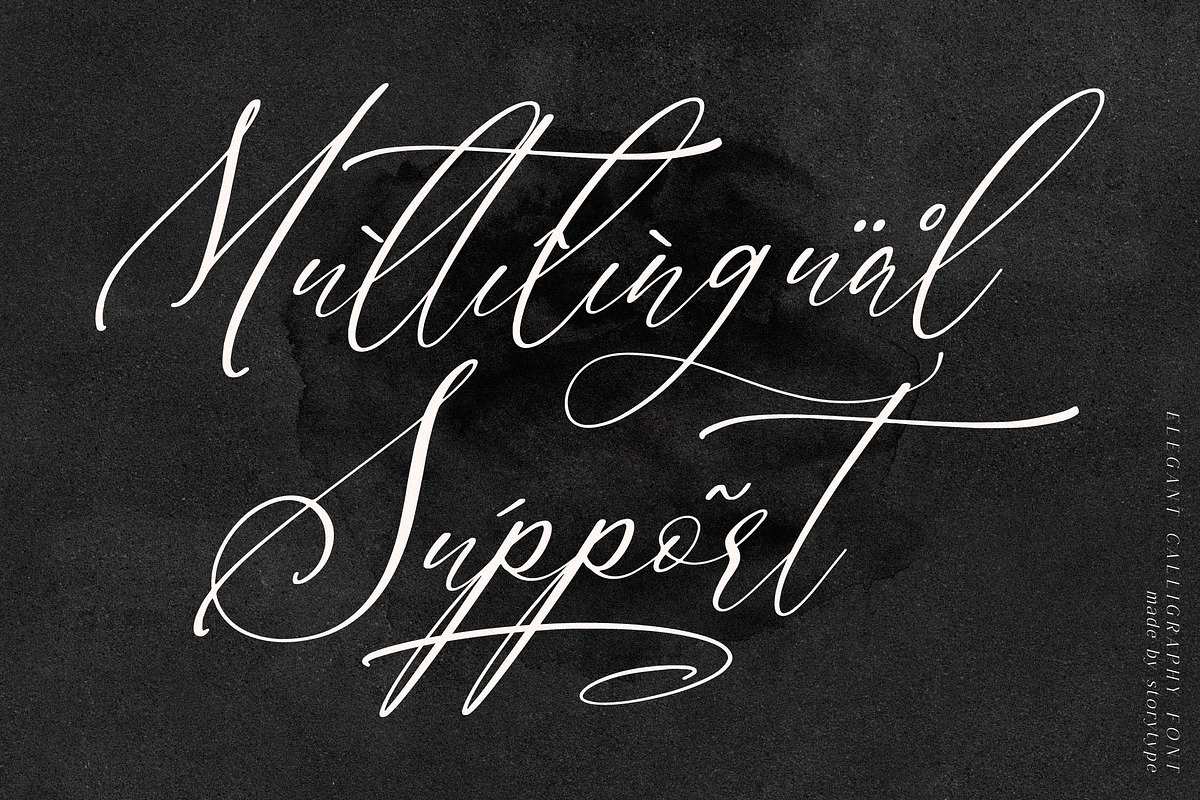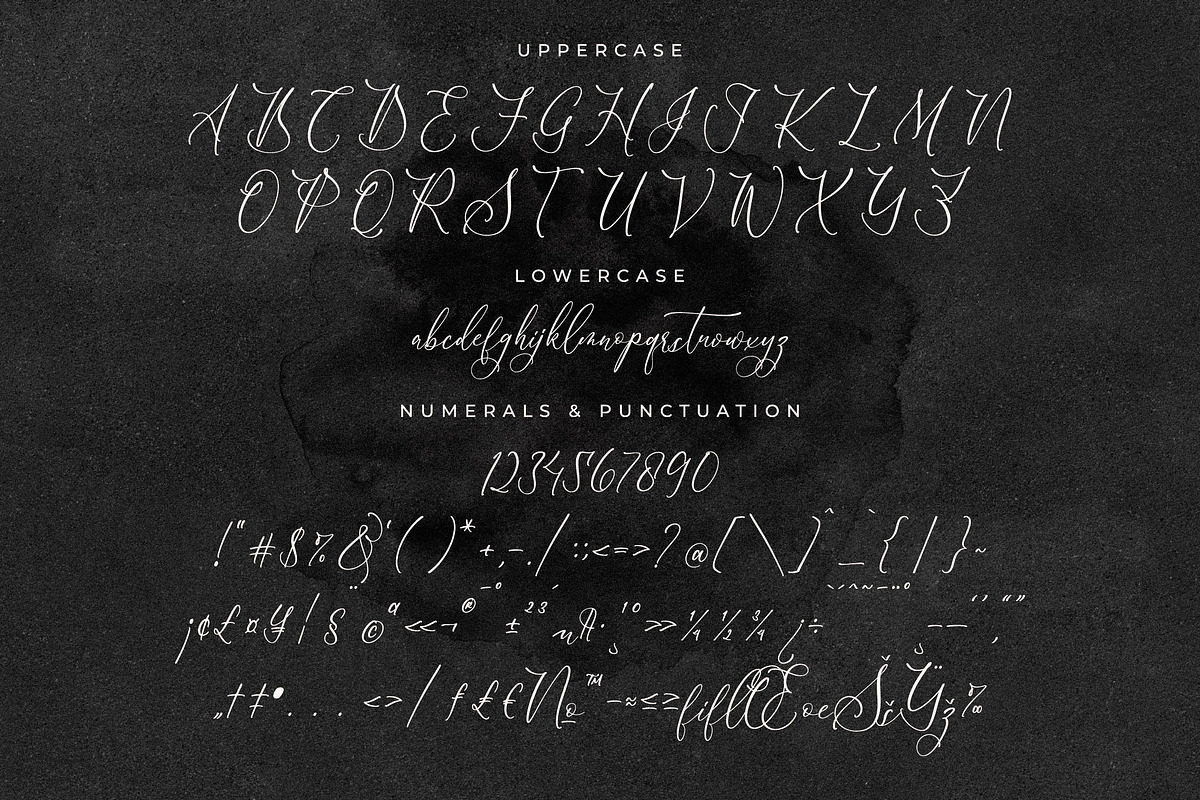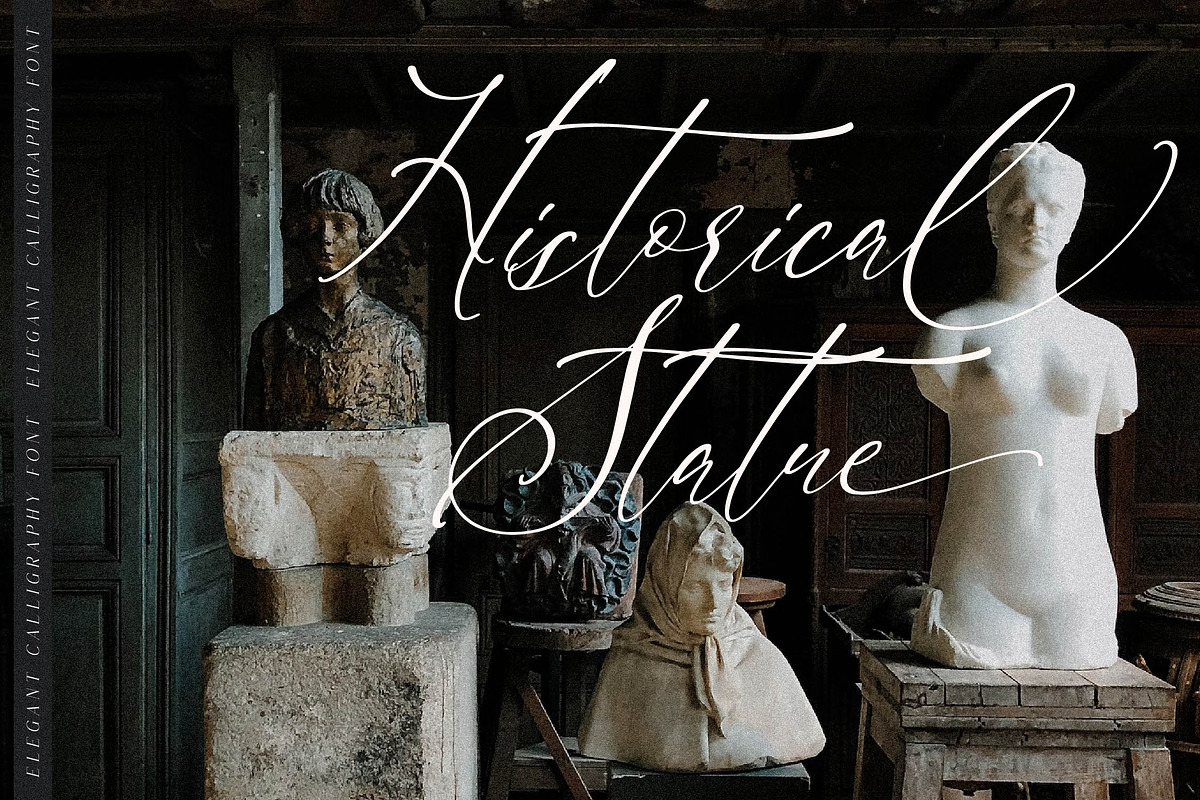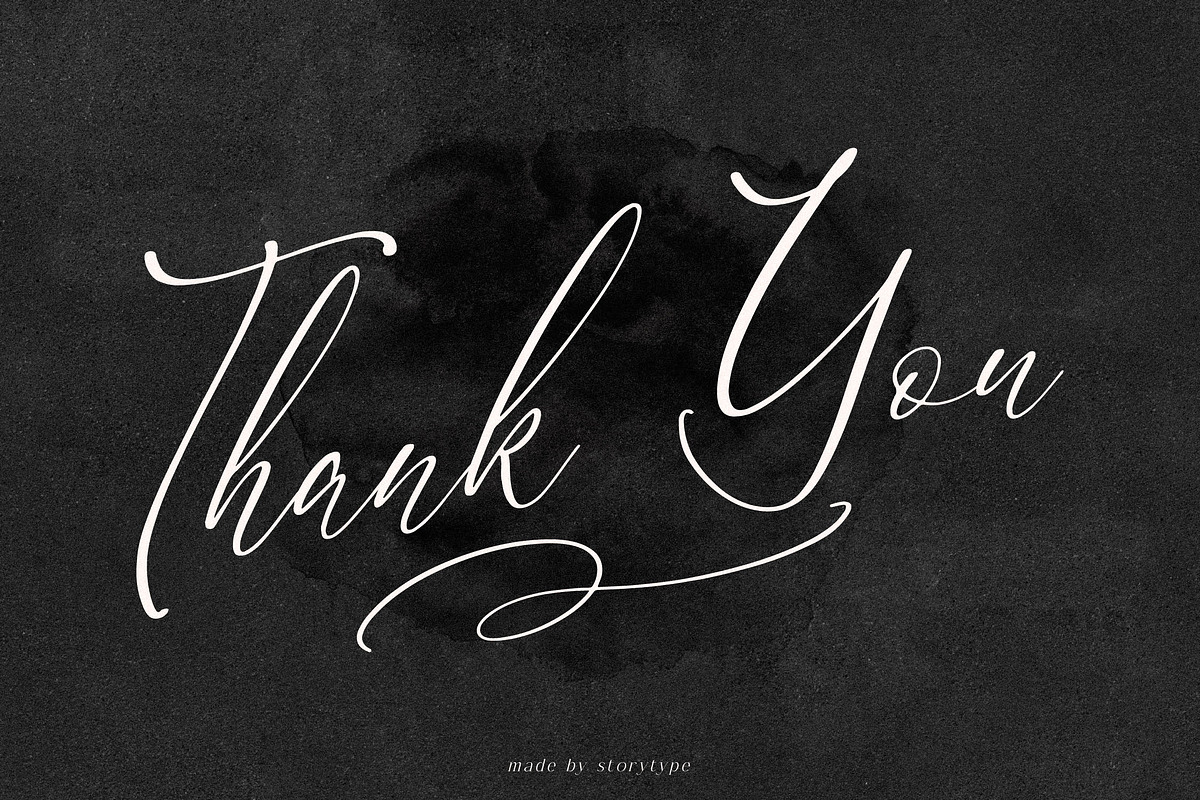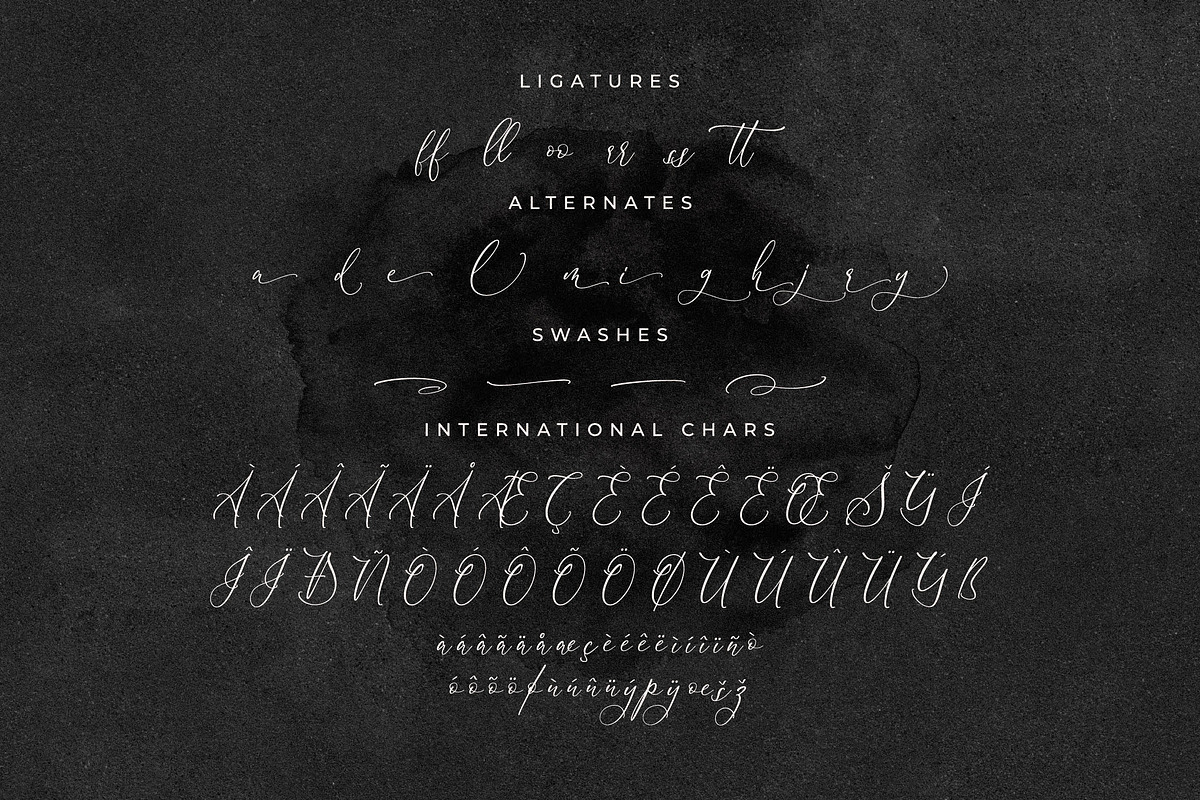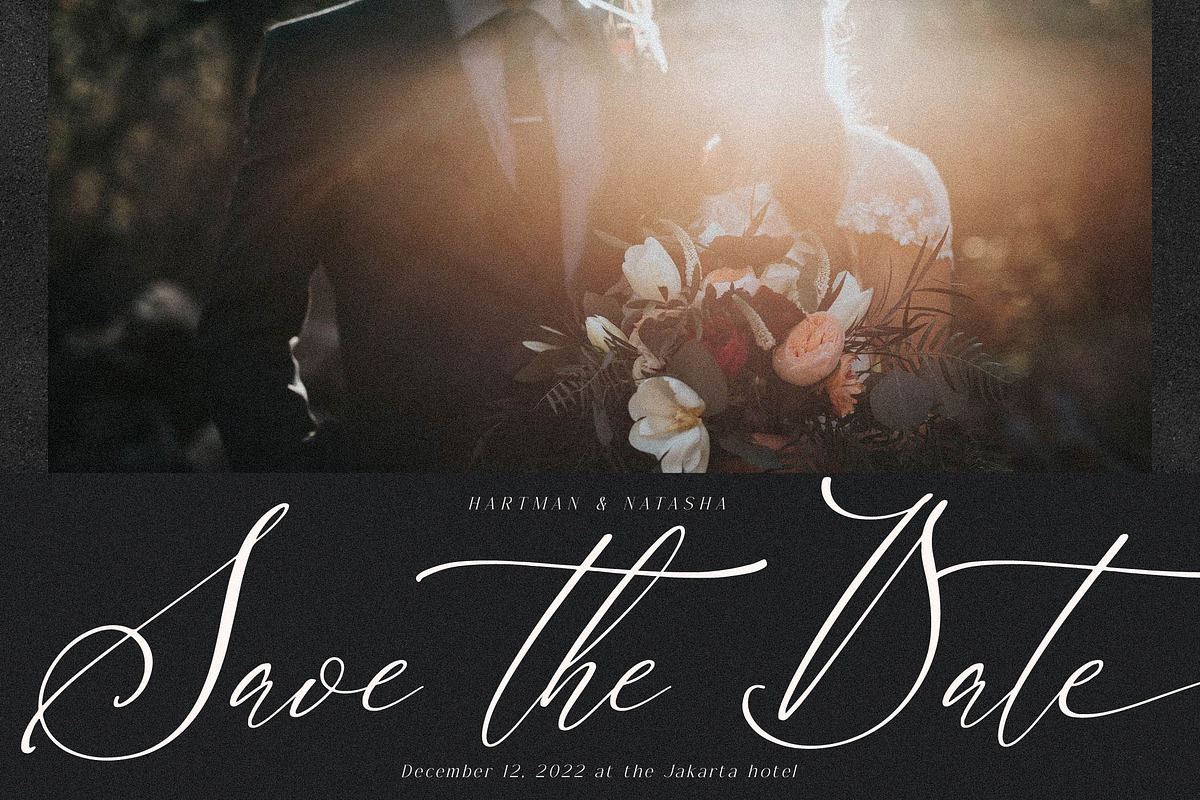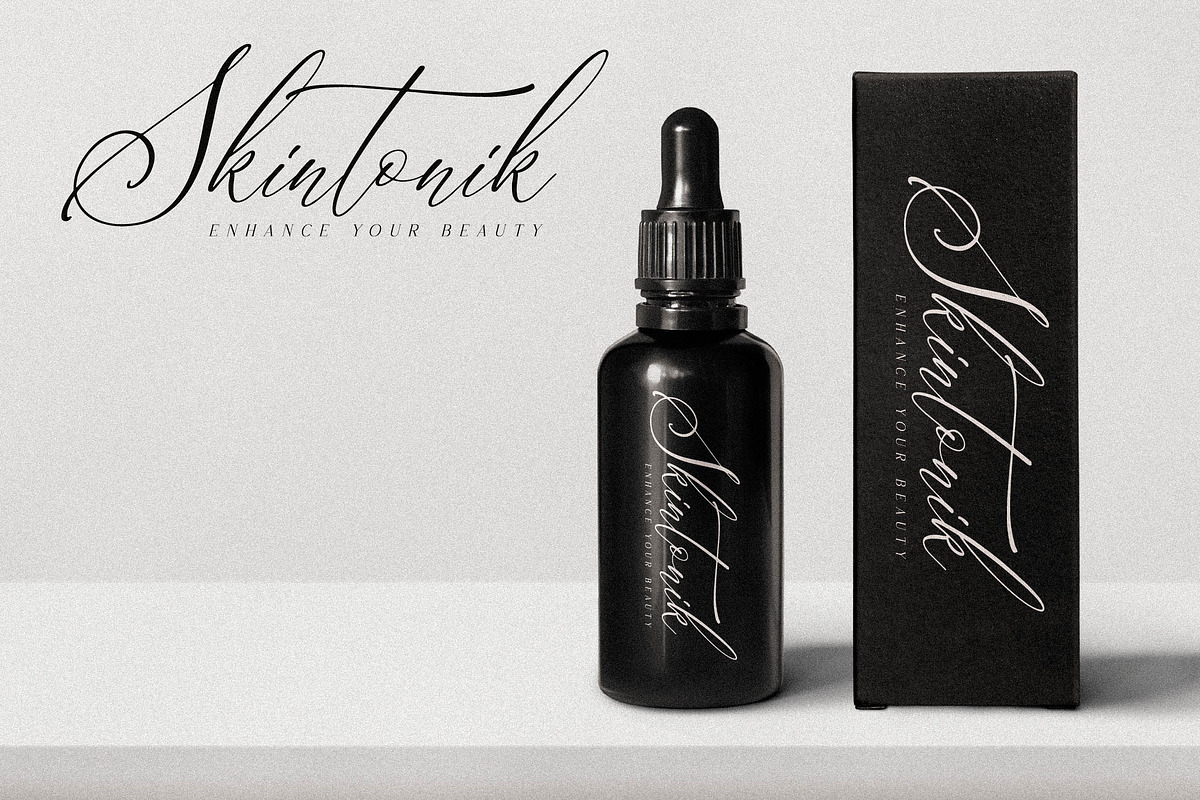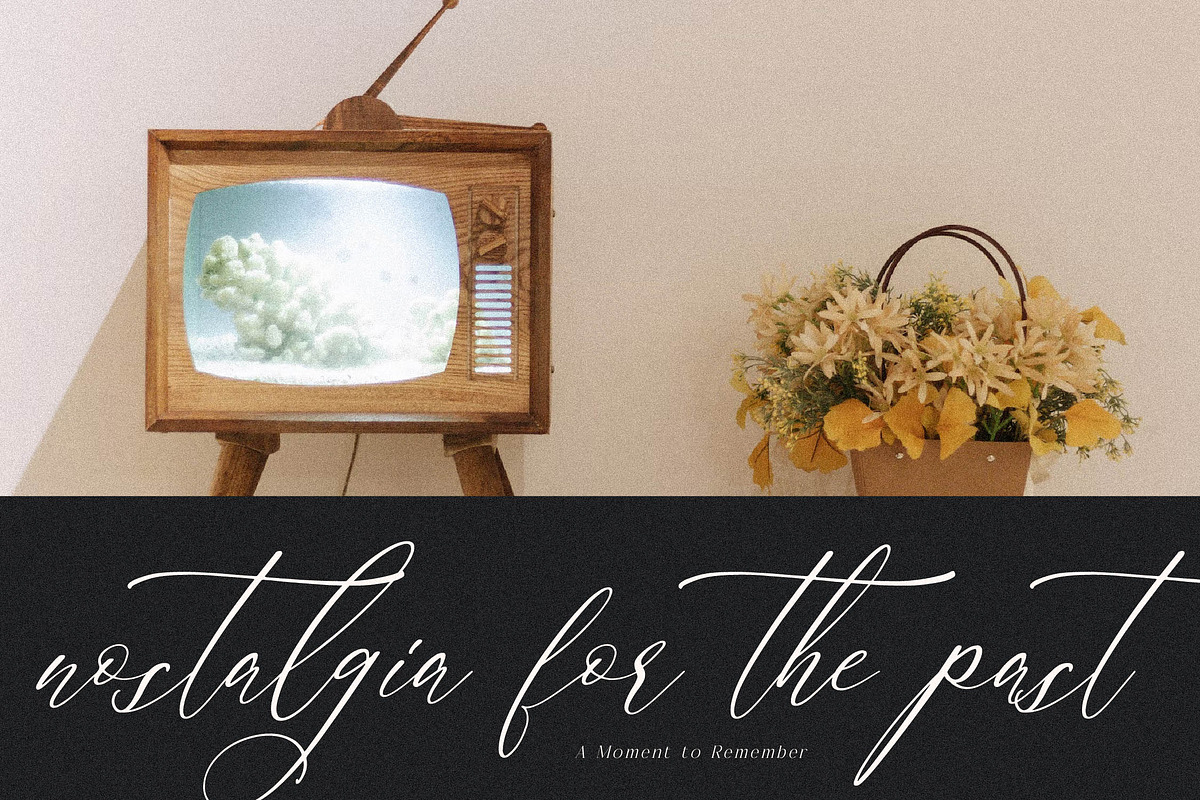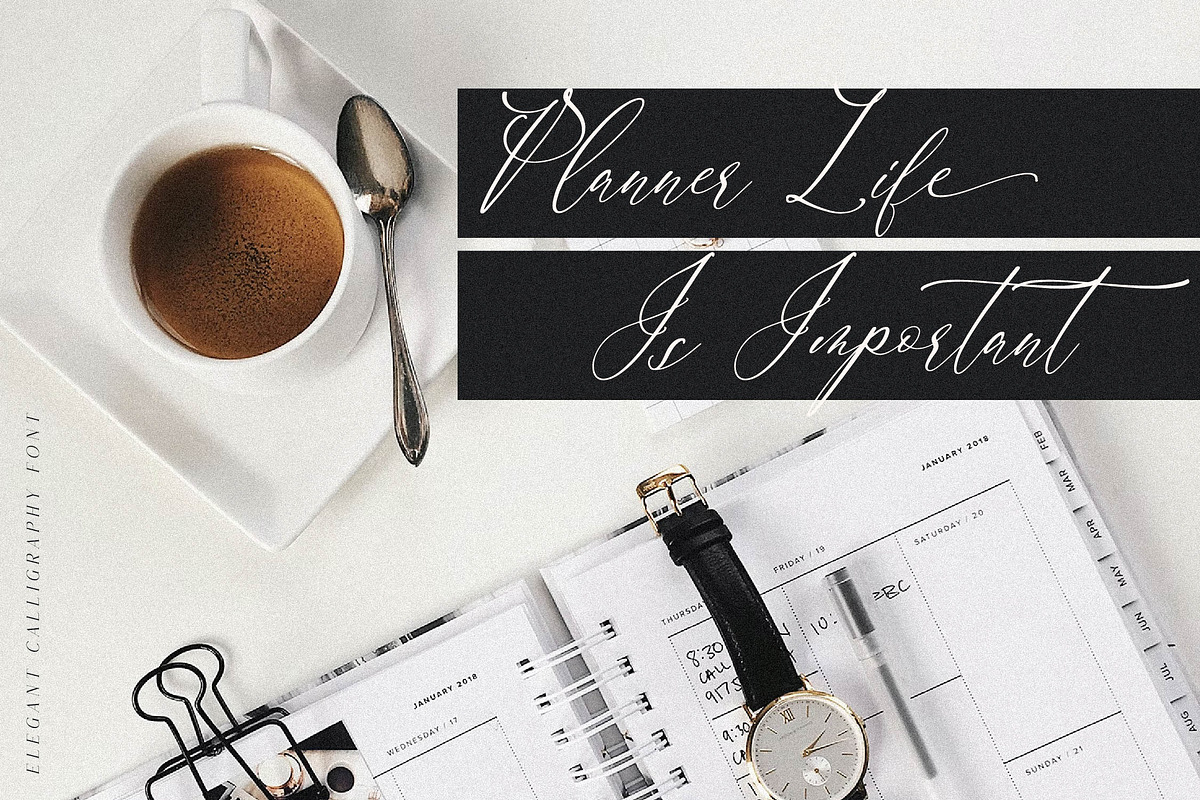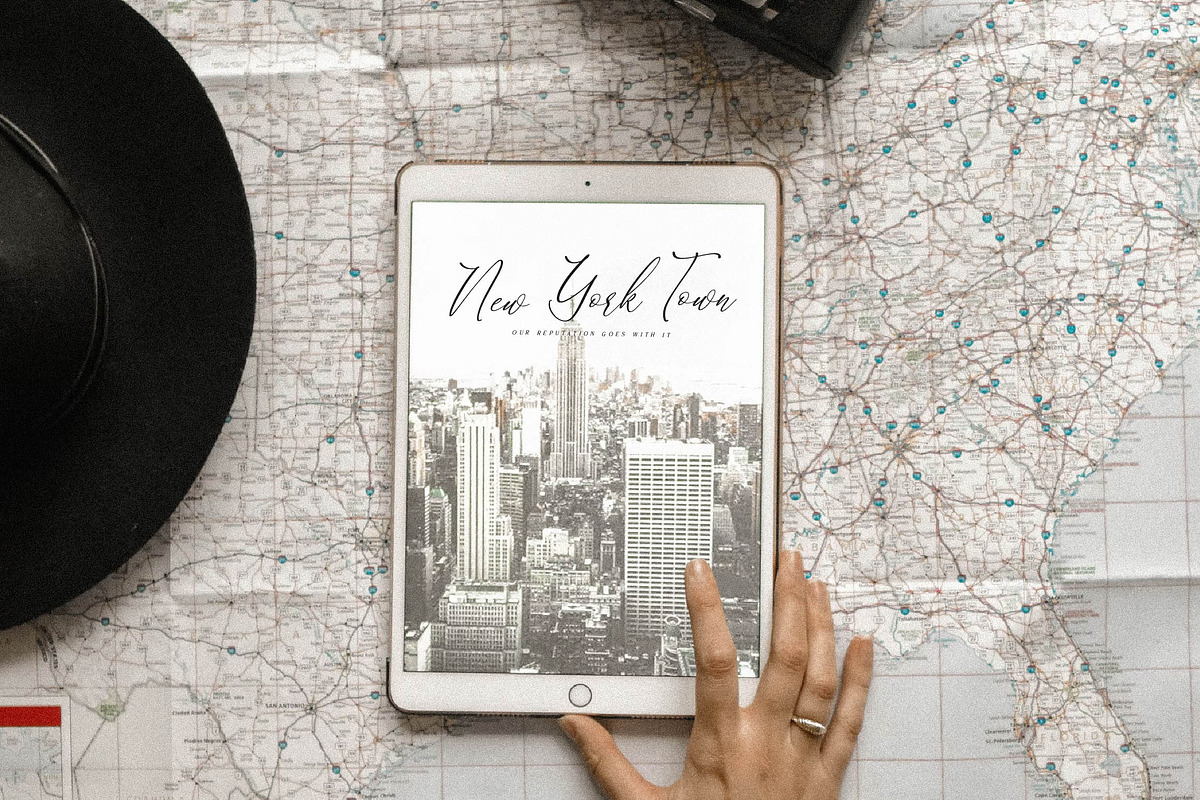
Scarlet Flettcher Elegant Calligraph
Proudly present Scarlet Flettcher - Elegant Calligraphy Font , created by Storytype, A luxury script that has own unique style & modern look. This typeface is perfect for an elegant & luxury logo, book or movie title design, fashion brand, magazine, clothes, lettering, quotes, and so much more.